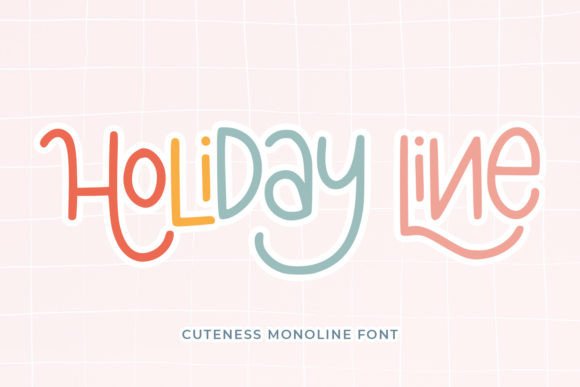
Add a touch of whimsy to your creative projects with Holiday Line, the captivating display font that exudes cheerfulness. Designed by the talented Abodaniel, this monoline font is meticulously crafted to add a playful charm to your designs, making it ideal for t-shirt designs, heartfelt quotes, custom mugs, and tote bags that reflect your unique style.
Picture your designs coming to life, adorned with Holiday Line's enchanting characters. Create eye-catching banners and social media posts that resonate with your audience. Whether you're a seasoned designer or just starting out, Holiday Line is the perfect companion to elevate your creations and make a lasting impression.
With its PUA encoding, accessing the full range of glyphs and swashes is a breeze, empowering you to unleash your creativity and explore endless design possibilities. Dive into a world of customization and personalization, making each project a reflection of your unique taste and vision.
Imagine the delight of your customers as they receive their custom-made products, adorned with the charming characters of Holiday Line. From cards that convey heartfelt messages to wedding invitations that exude elegance and joy, Holiday Line adds a magical touch to every occasion.
Don't miss this opportunity to elevate your designs and captivate your audience with Holiday Line. Its user-friendly features and enchanting aesthetics make it the perfect choice for designers seeking a font that sparks creativity and ignites imagination. Embrace the joy of Holiday Line and transform your projects into captivating masterpieces.